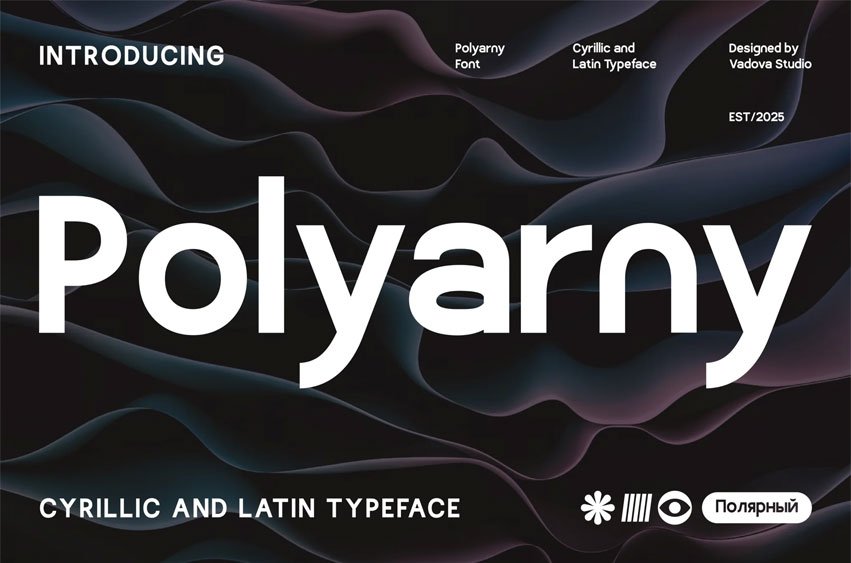
Polyarny Font Cyrillic & Latin Typeface is a sleek modern sans serif typeface that merges contemporary geometry with international versatility. Featuring both Cyrillic and Latin characters, this typeface offers wide multilingual support and a clean, neutral tone. Its smooth curves, generous spacing, and high readability make it ideal for editorial layouts, digital interfaces, and global branding. Whether for impactful headlines or minimalistic UI design, Polyarny stands as a statement of elegance and clarity.
Relevance and UsePolyarny Cyrillic & Latin Typeface is perfect for global branding, modern editorial layout, website headers, UI/UX design, startup identity, multilingual packaging, tech brand logo, social media quote design, campaign, creative agency pitch, tech identity font, contemporary typography, clean layout, minimalist sans, magazine typeface, bilingual font, global brand font, readable sans serif, editorial headline font,